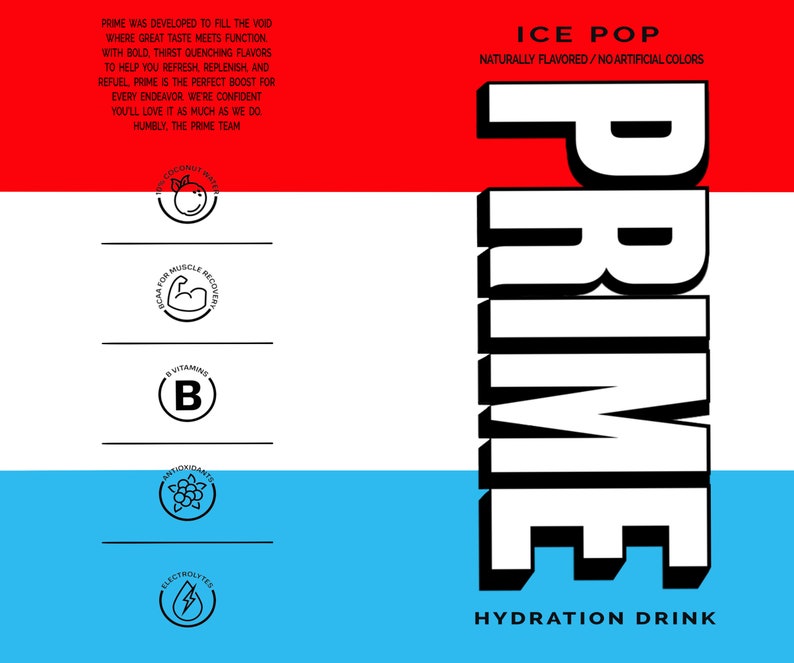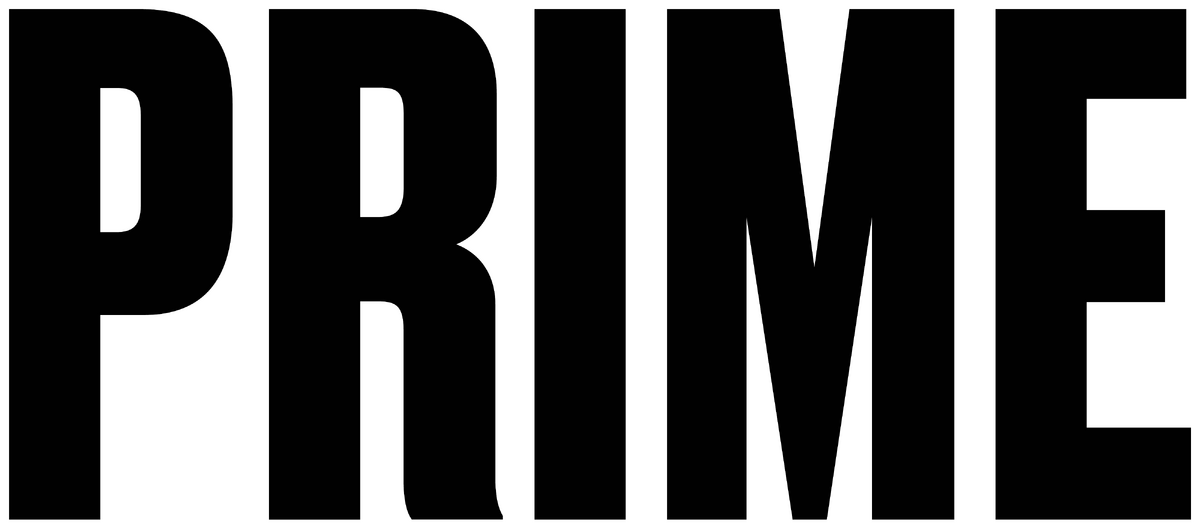
Prime Hydration Font
Prime Hydration Font - Looks close to a version of knockout to me. This font oozes elegance and has a refreshing vibe,. Prime hydration’s font color is predominantly black or shades of gray, which aligns with their brand image of elegance and. The font used by prime hydration looks sleek, modern, and perfectly aligns with the brand’s image, which appeals to younger. Know i am late but it's knockout no. Anyone know this one for prime hydration?
The Font Used By Prime Hydration Looks Sleek, Modern, And Perfectly Aligns With The Brand’s Image, Which Appeals To Younger.